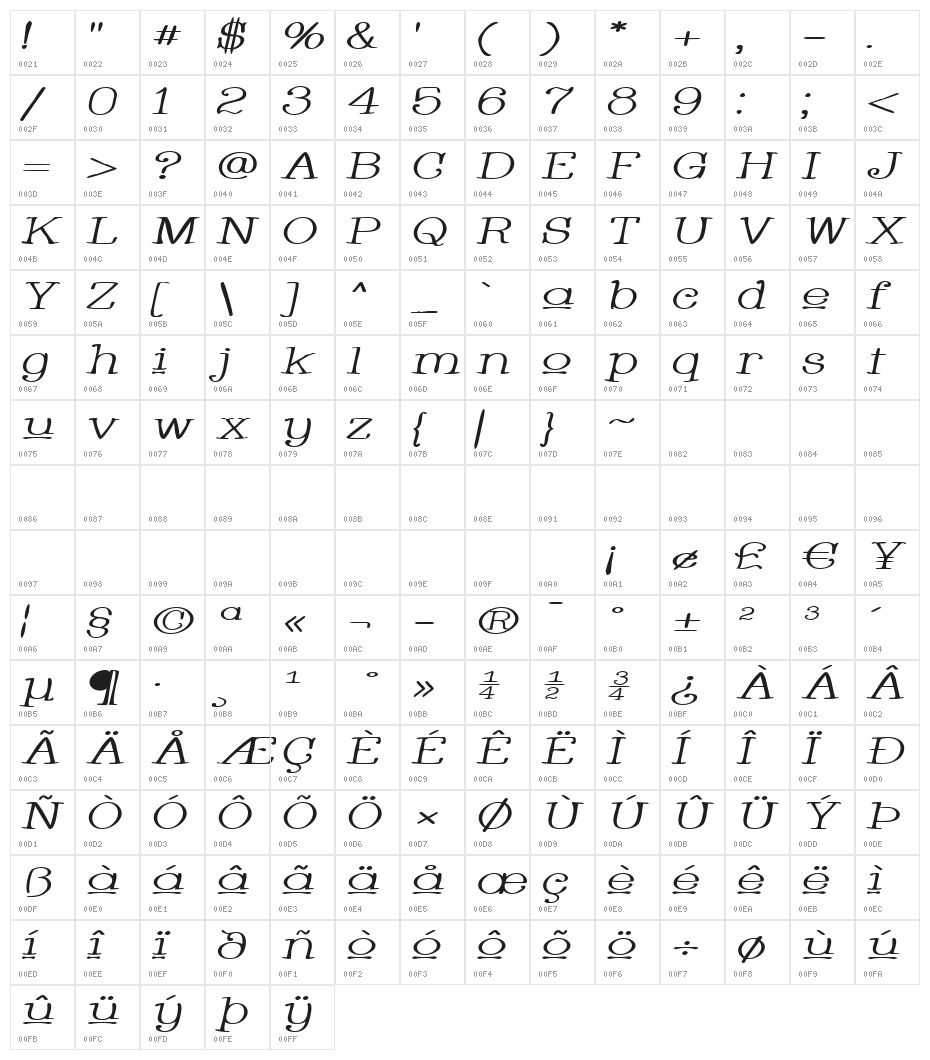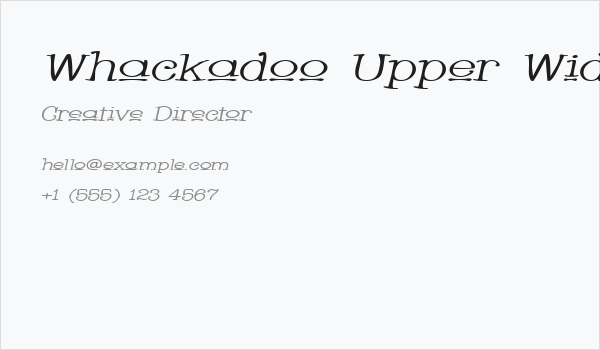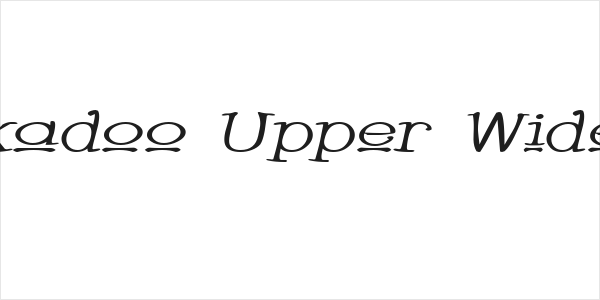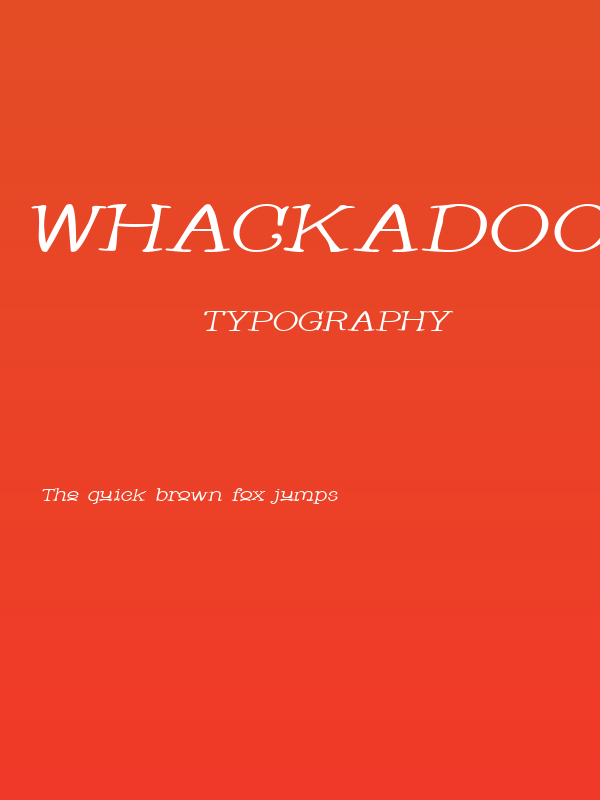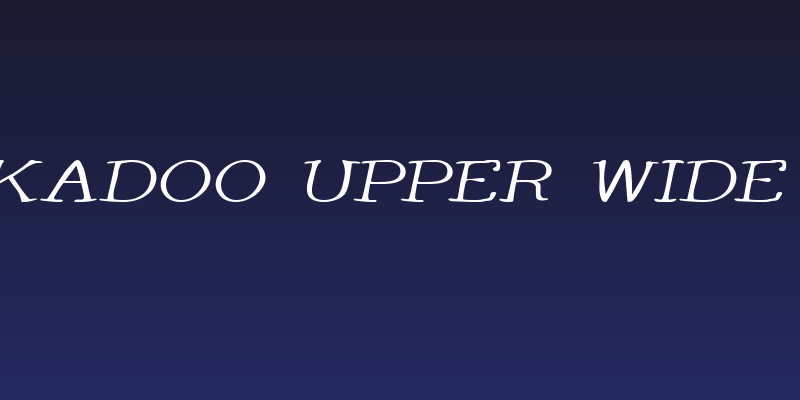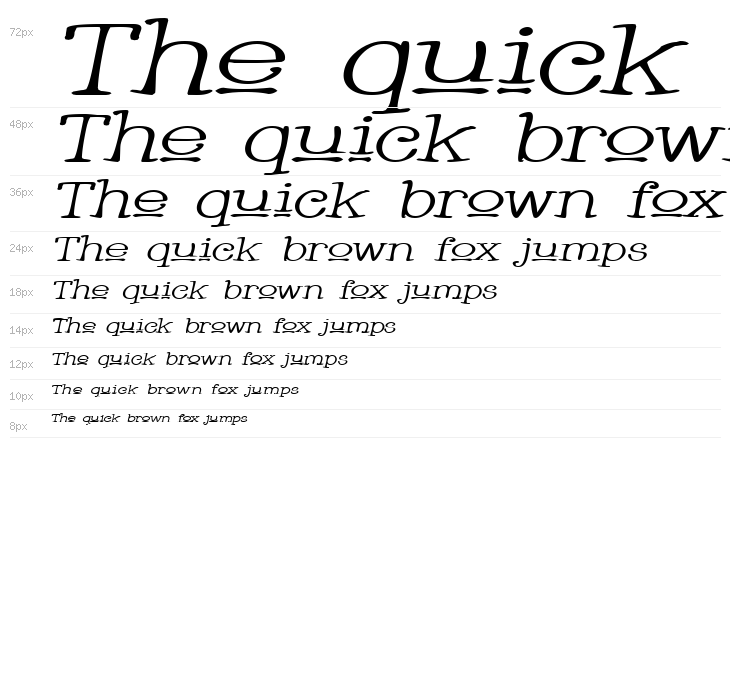
Whackadoo Upper Wide Italic Font
Whackadoo Upper Wide Italic Description
This font features a playful and dynamic style with a distinctive italic slant. The characters are wide and have a whimsical flair, making them stand out with their unique curves and strokes. The uppercase letters are bold and assertive, while the lowercase letters maintain a consistent flow, adding to the overall charm. Numbers and special characters are designed to match the font's lively aesthetic, ensuring a cohesive look across all text elements. The font's wide spacing and exaggerated curves make it ideal for creative and eye-catching designs.
| Proposed Projects | Ideal for creative projects such as children's books, playful branding, greeting cards, and artistic posters. |